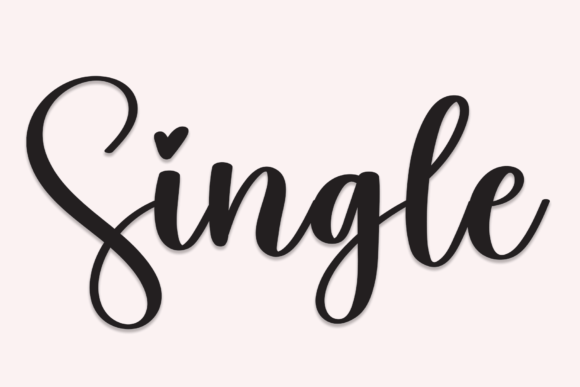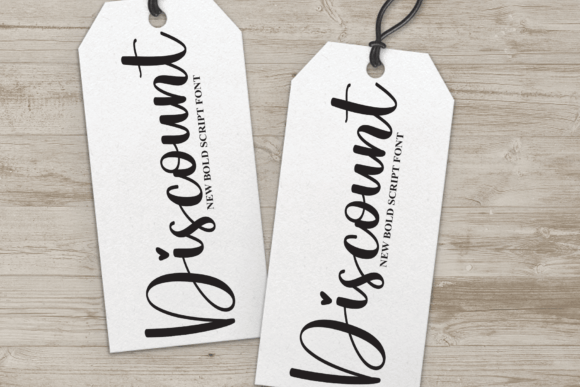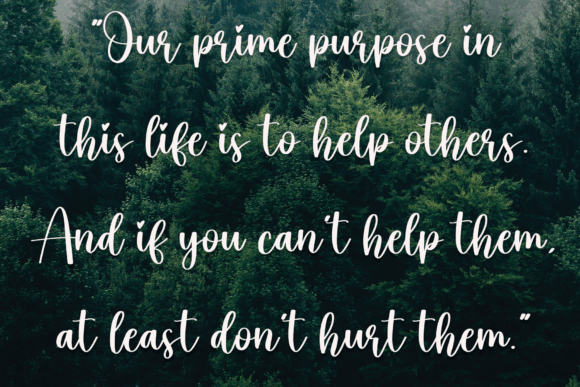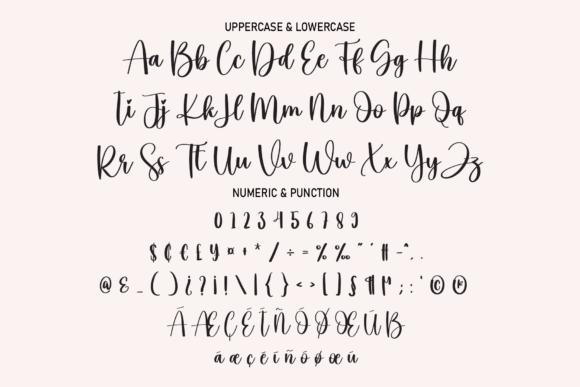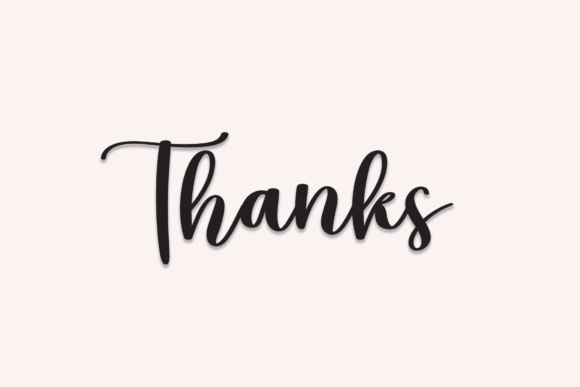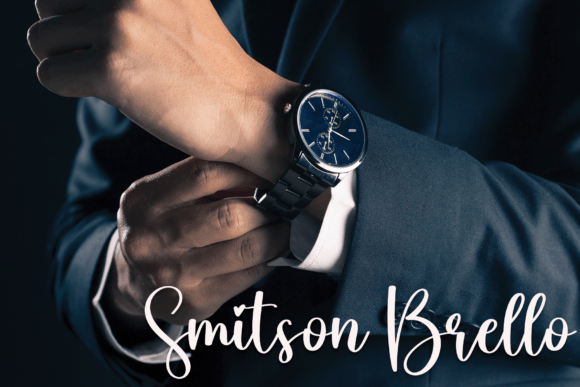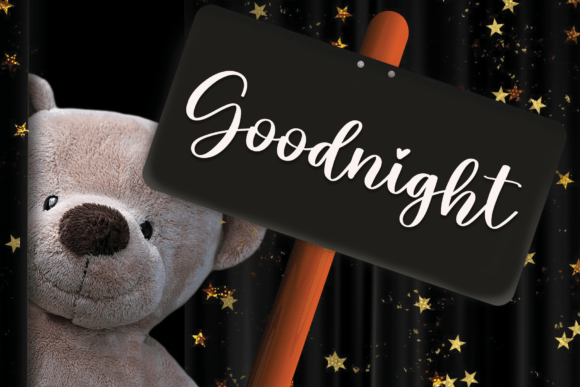
Single Font
About Single Font
Single’s latest letter style epitomizes perfection for a diverse range of creative applications. This distinctive font is tailor-made for captivating wall displays, imparting a touch of contemporary elegance to any space. Its versatility extends to the realm of romanticism, making it an ideal choice for crafting enchanting wedding invitations that set the tone for a special day.
Social media posts come alive with Single’s letters, as they effortlessly elevate logos and lend a unique flair to advertisements. Imagine the impact on product packaging — each character contributing to a design that stands out on crowded shelves, leaving a lasting impression on consumers. Product designs and labels acquire a bespoke quality with Single, adding a handwritten charm that resonates with authenticity.
For photographers, this font serves as the perfect watermark, subtly branding images with a personalized touch. Invitations and stationery benefit from the warm, human touch of Single, making every piece feel crafted and unique. Whatever the project, if it craves a handwritten taste, Single is the go-to choice.
In essence, Single’s latest style letters transcend conventional font utility. They become a transformative element, breathing life into various creative endeavors. From the allure of wall displays to the emotional resonance of wedding invitations, the contemporary charm of Single’s letters adapts seamlessly to any project that demands a touch of handwritten sophistication.